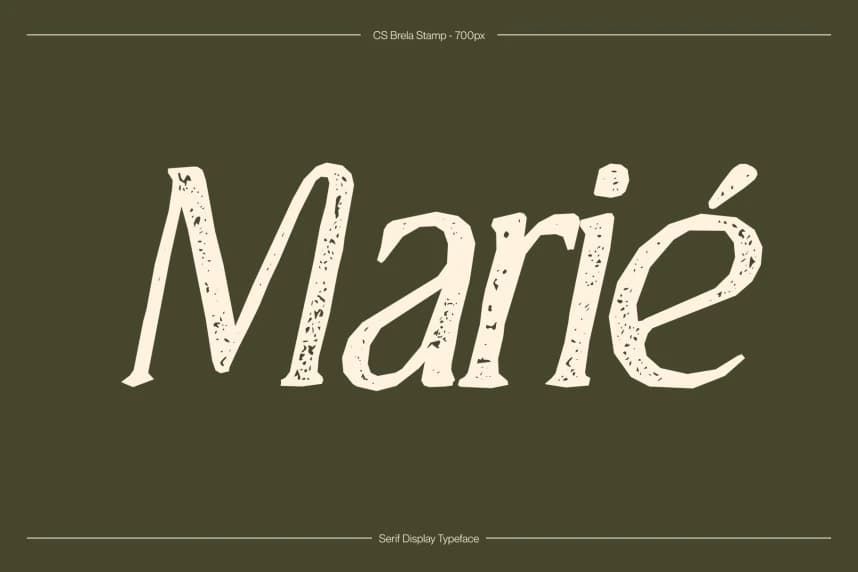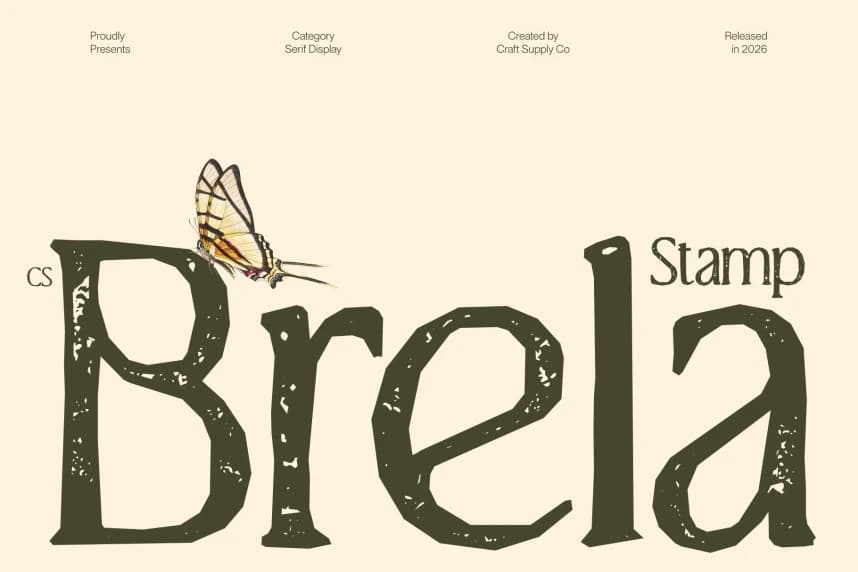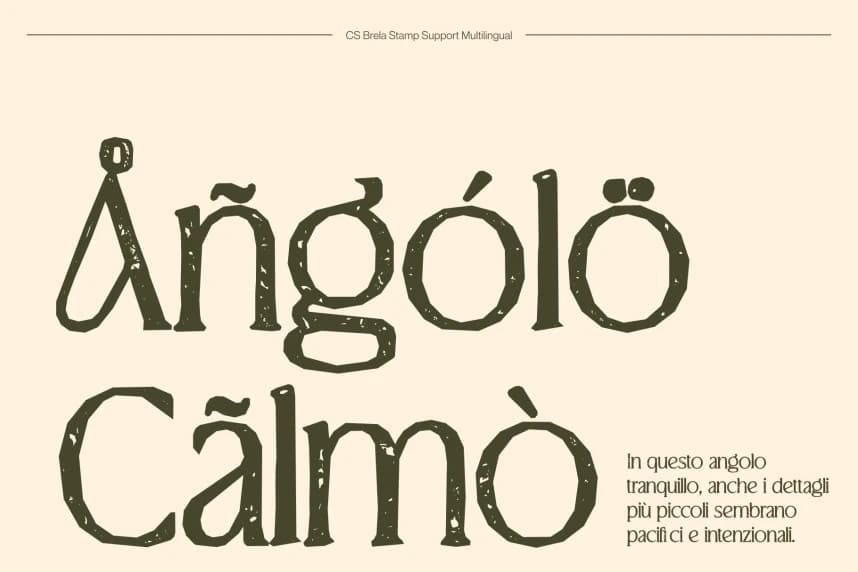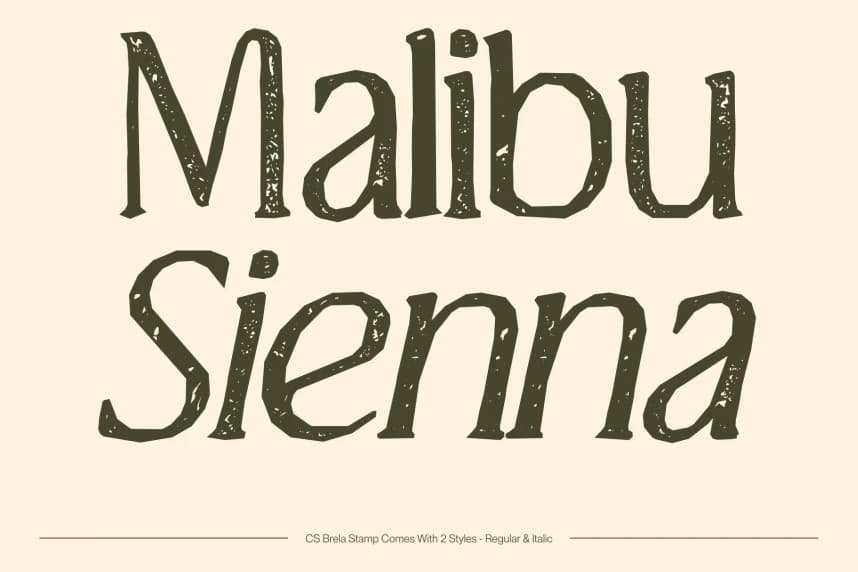
CS Brela Stamp Font – Elegant Serif with Textured Playful Sophistication Refined Serif with a Stamped Warmth This elevates its elegant serif foundation with a subtle stamped texture that introduces depth and artisanal charm.